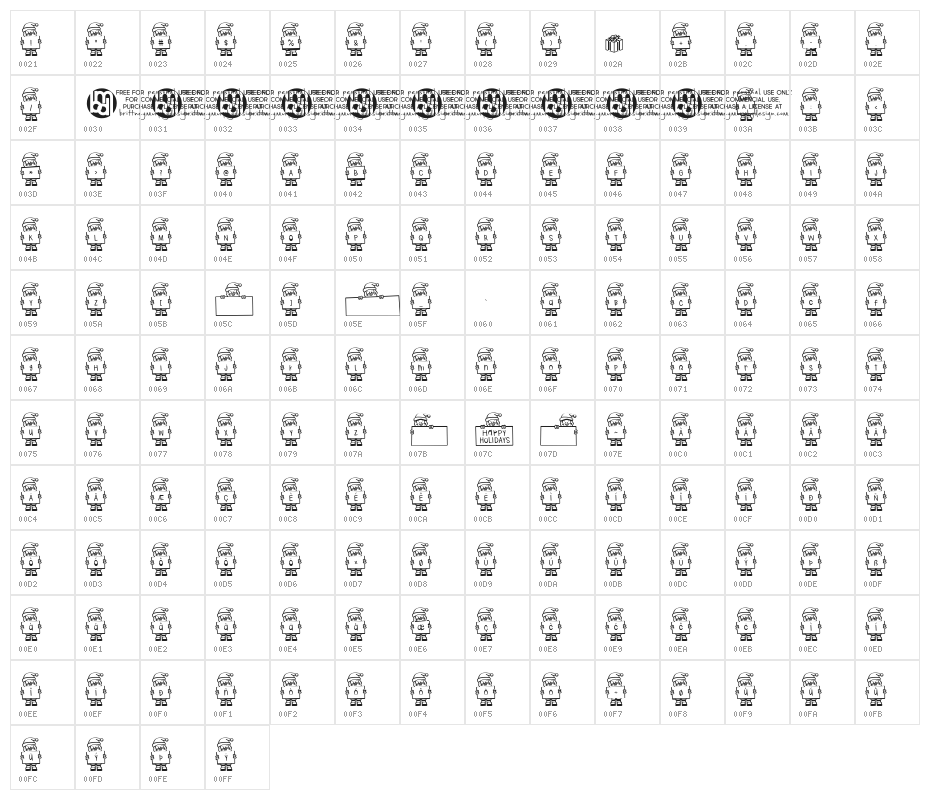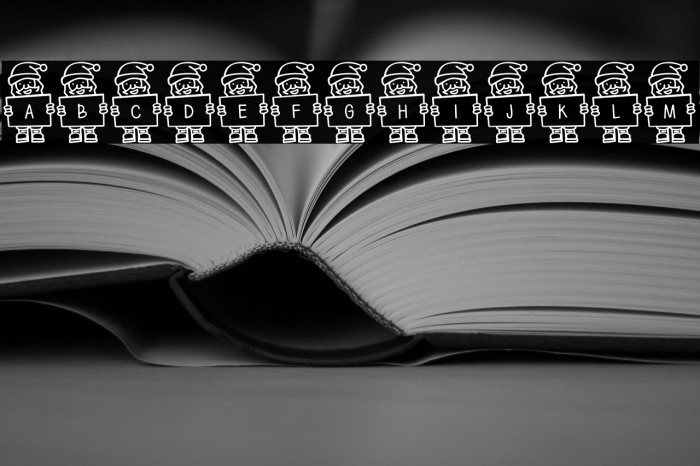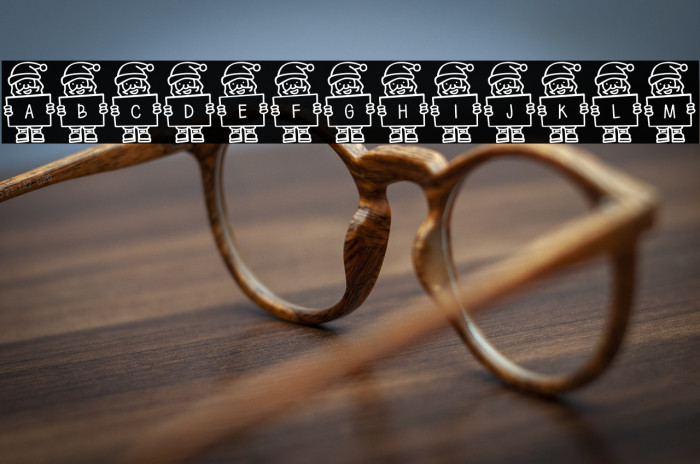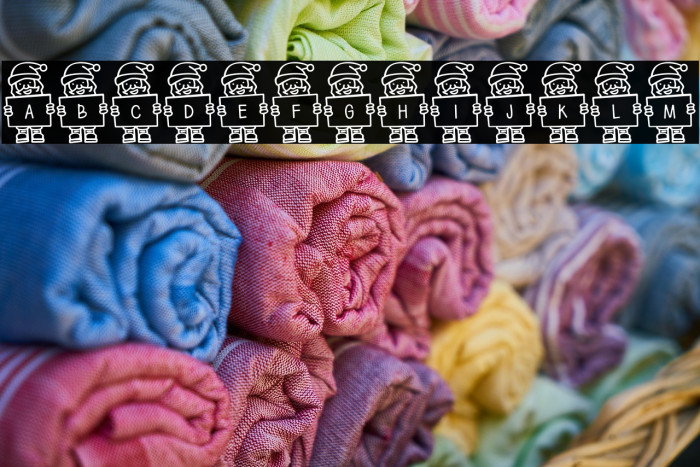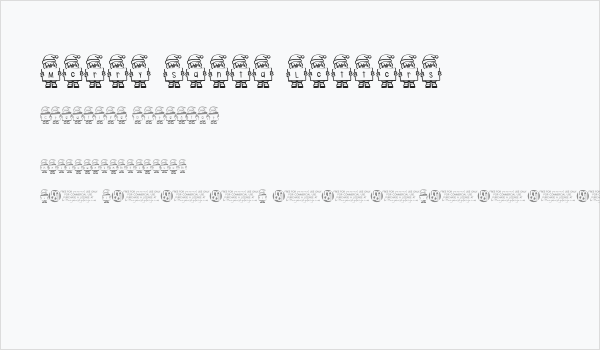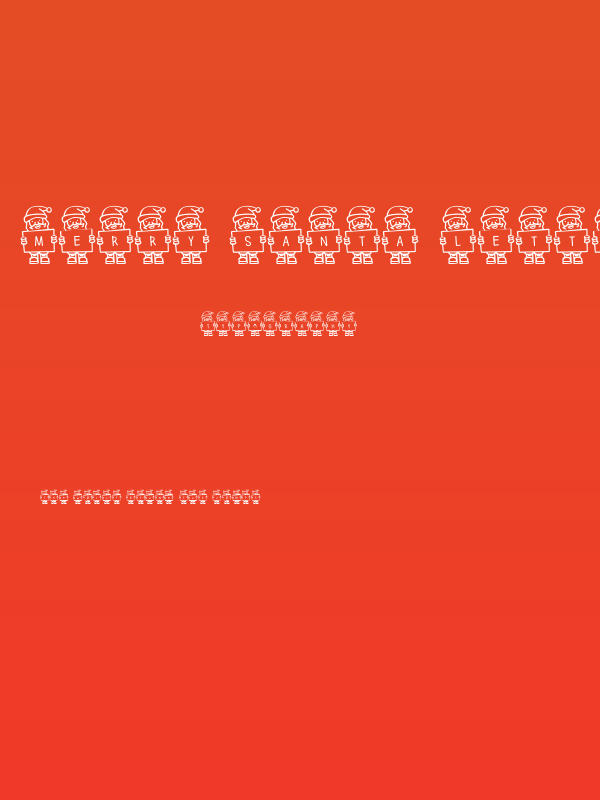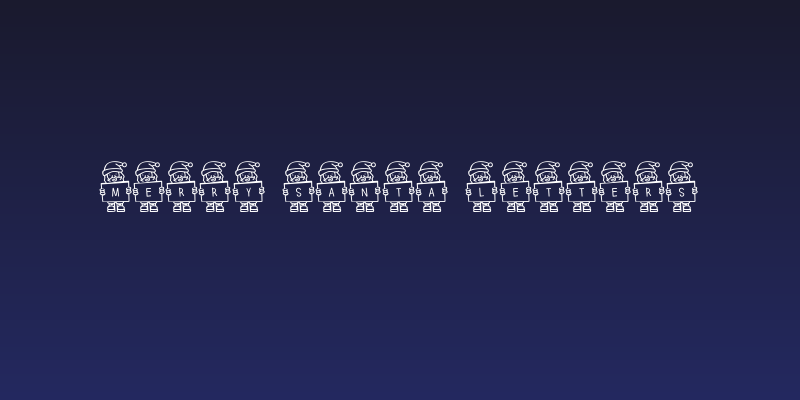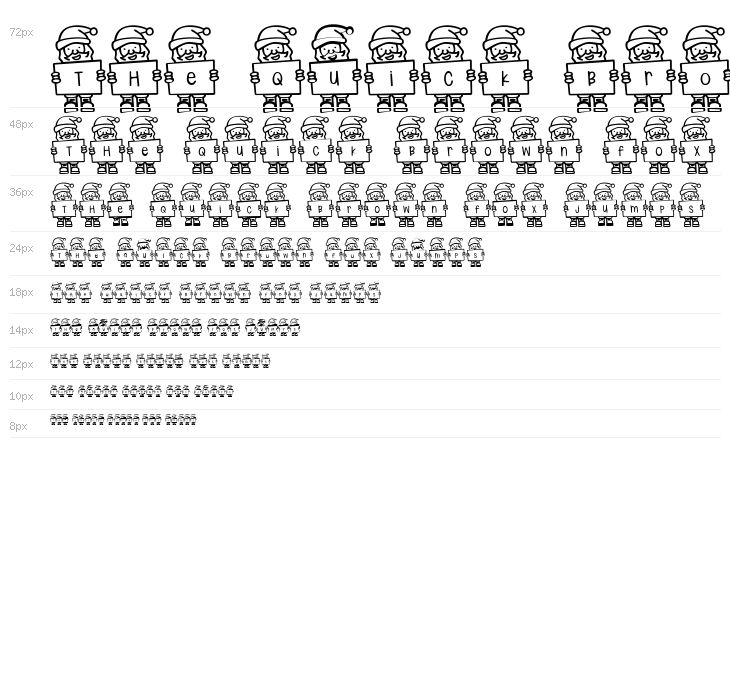
Merry Santa Letters Font
Merry Santa Letters Description
This playful and festive font features characters depicted as cheerful Santa figures holding signs with letters and numbers. Each character is uniquely designed with a Santa hat and a joyful expression, adding a whimsical touch to the text. The font is highly decorative, making it ideal for holiday-themed projects. The characters are evenly spaced, ensuring readability while maintaining a consistent and charming appearance. The design is intricate, with detailed illustrations that capture the essence of holiday cheer.
| Proposed Projects | Ideal for holiday cards, festive banners, Christmas party invitations, and seasonal marketing materials. |